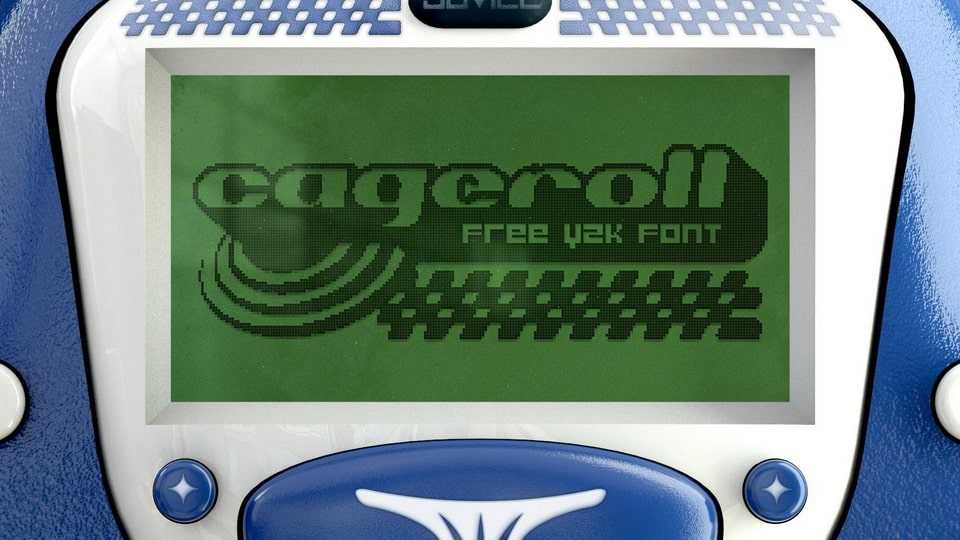
Download Cageroll font, a Y2K font inspired by a certain PS1 Racing game… Cageroll font is as true to the era of Y2K as drum ‘n’ bass music & monochrome LCD displays are.